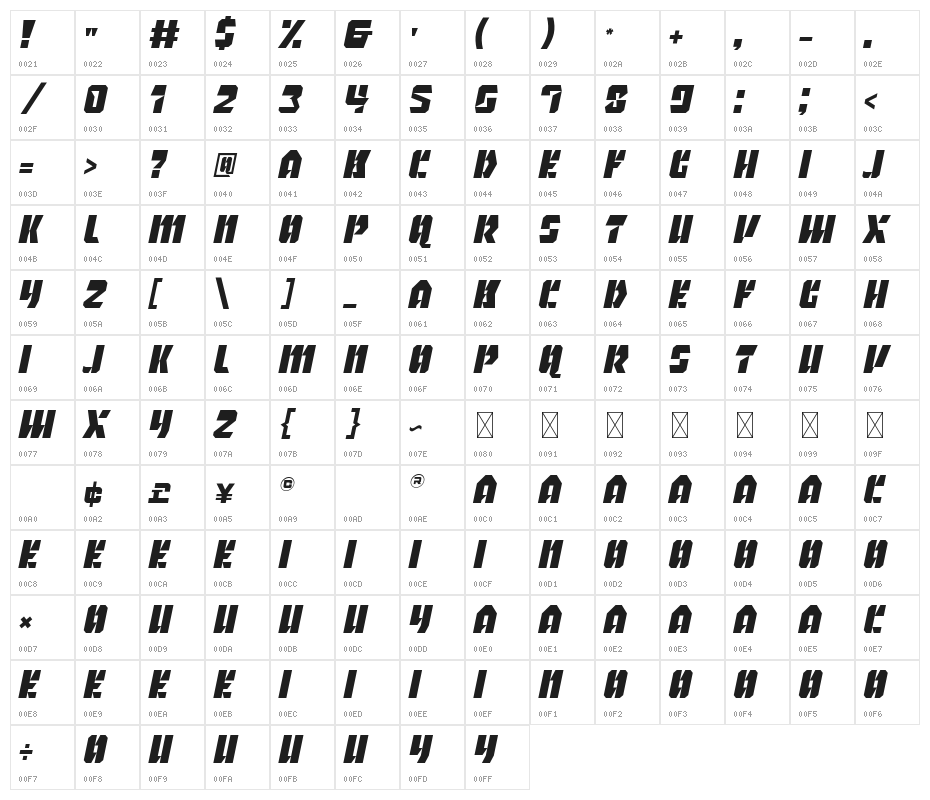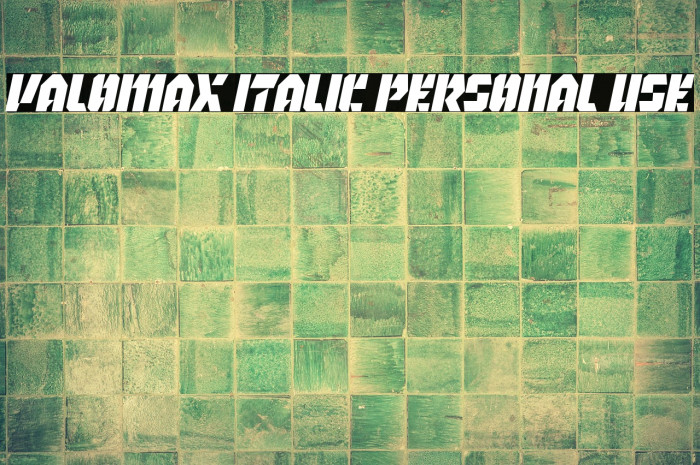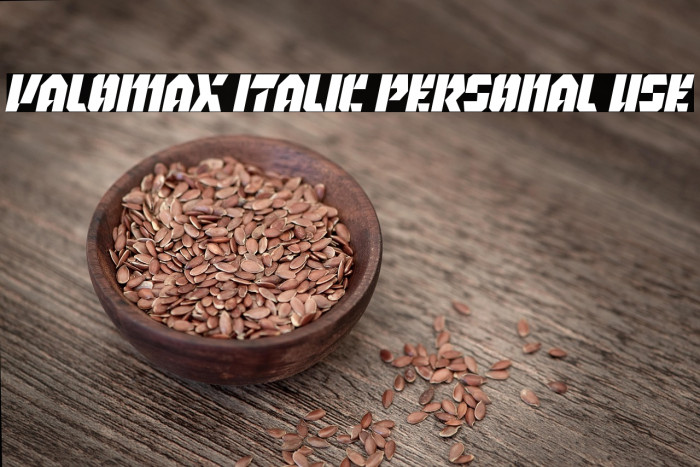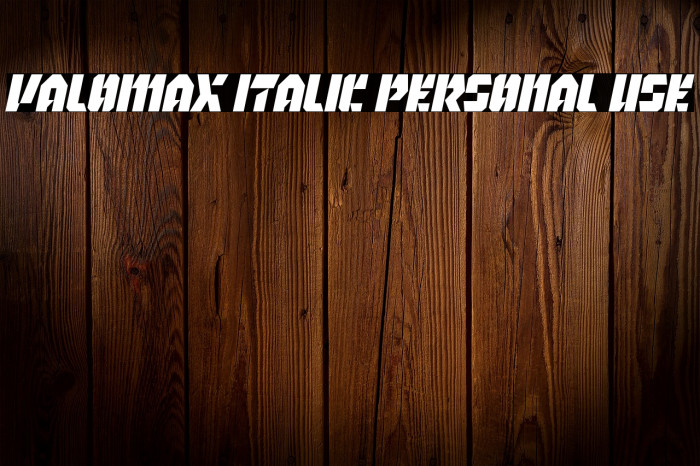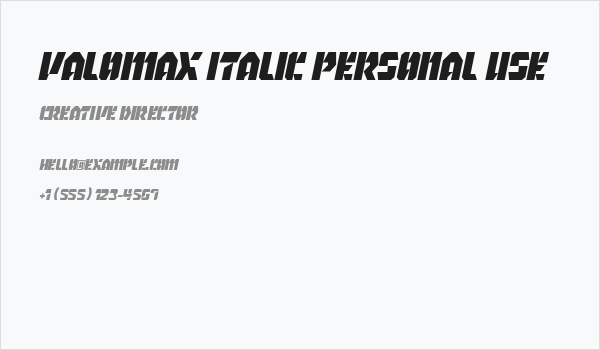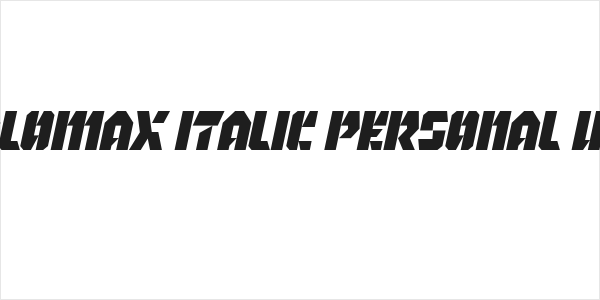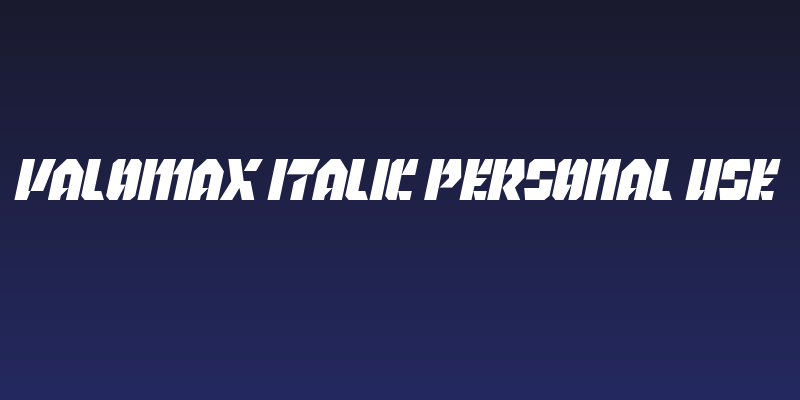
Valomax Italic Personal Use Font
Valomax Italic Personal Use Description
A bold, italicized display font with sharp, angular edges and a futuristic style.
| Overall Style | Futuristic, Modern |
| Proposed Projects | Posters, headlines, branding, futuristic designs. |